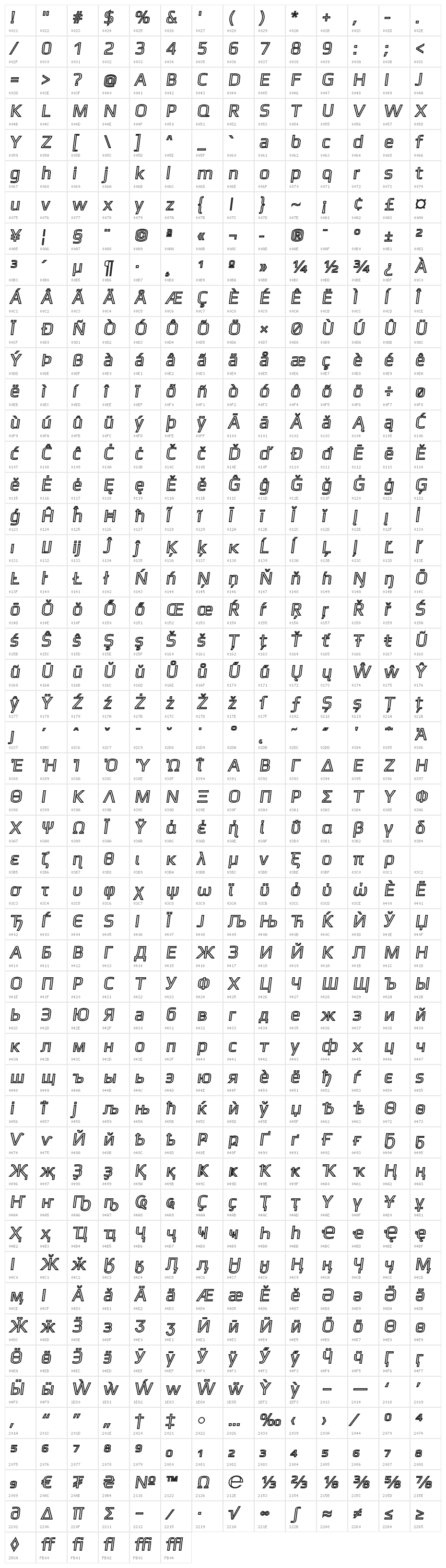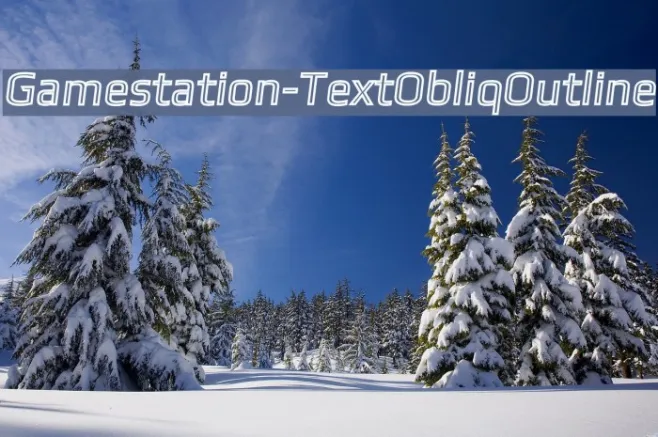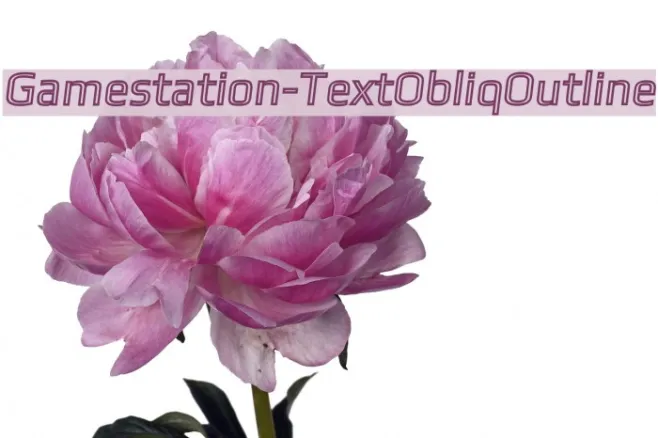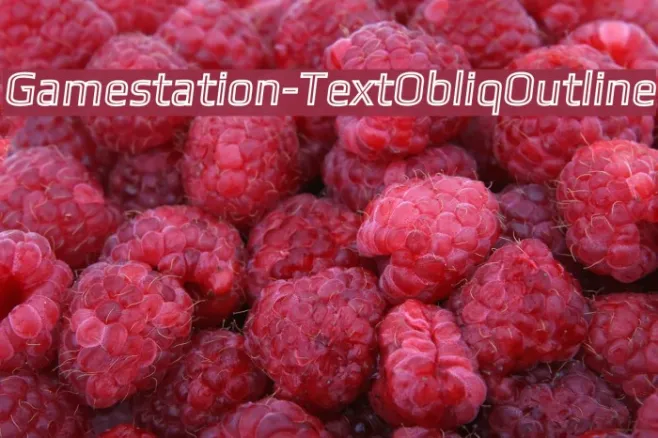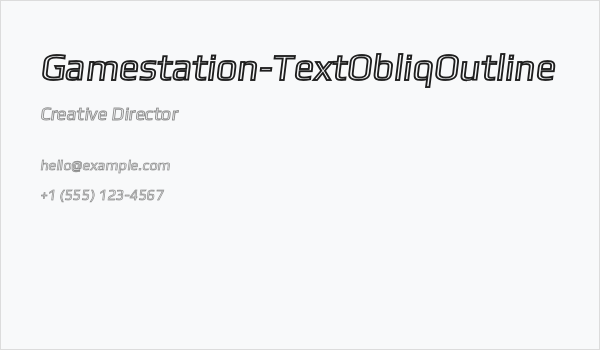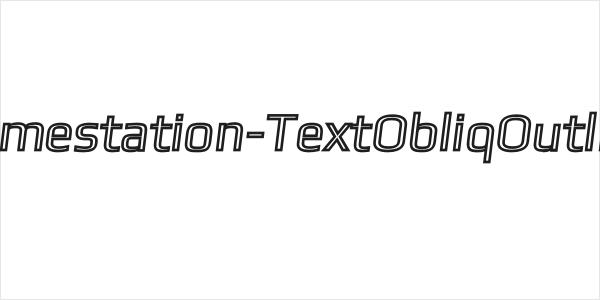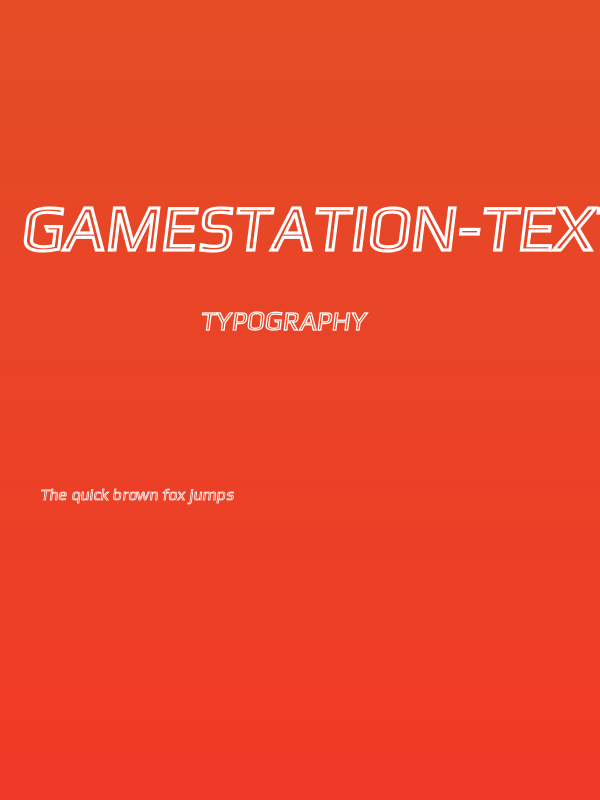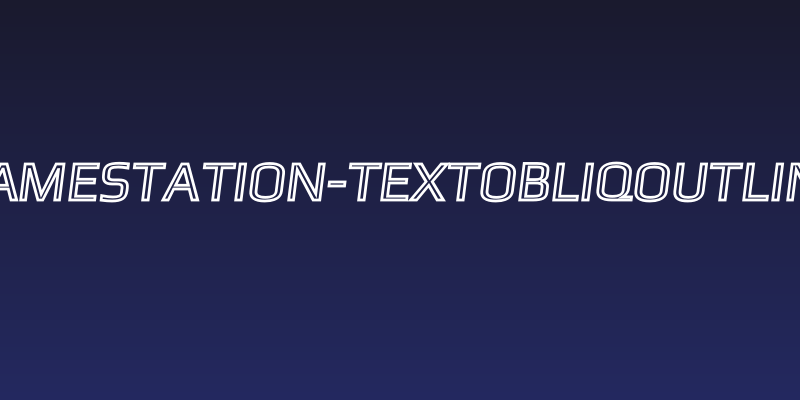
Gamestation-TextObliqOutline Font
Gamestation-TextObliqOutline Description
This font features a modern, outlined style with a distinct oblique slant, giving it a dynamic and futuristic appearance. The uppercase and lowercase letters maintain a consistent geometric form, with clean lines and sharp angles. The numerals and special characters follow the same design principles, ensuring uniformity across all glyphs. The outlined nature of the font adds a layer of depth, making it suitable for eye-catching designs. Its structured yet playful form makes it versatile for various creative applications.
| Proposed Projects | Ideal for video game titles, tech branding, futuristic posters, and digital media. |